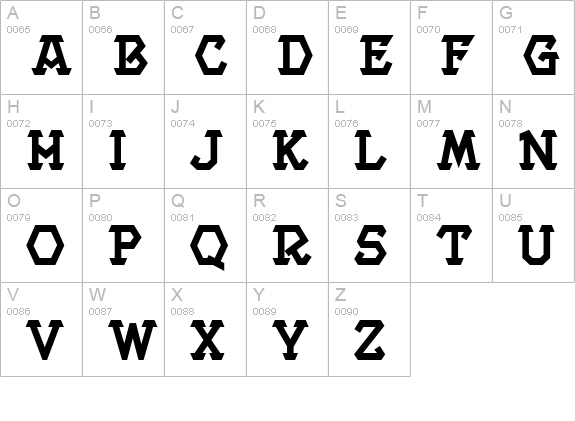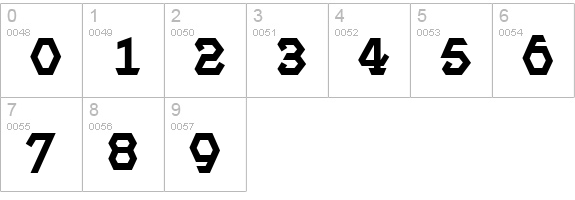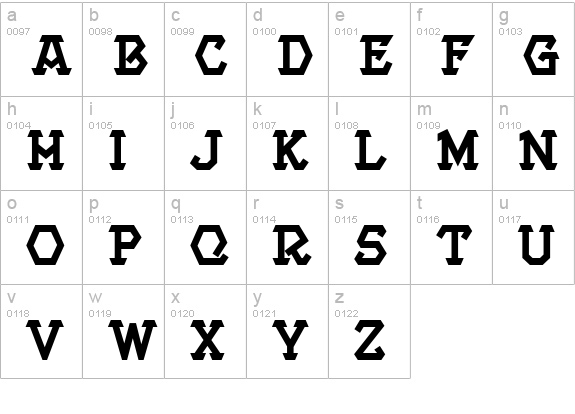
ProjectBold Font Details
ProjectBold is a striking and modern typeface that exudes confidence and sophistication. With its bold and clean lines, this font is perfect for making a statement in any design project. Whether you are creating a poster, logo, or website, ProjectBold is sure to capture attention and leave a lasting impression. The best part? ProjectBold is available for free download at FontsMarket.com. Now you can elevate your designs with this stunning font without breaking the bank. Don't miss out on this opportunity to add a touch of boldness to your projects with ProjectBold. Download it today and let your creativity shine!